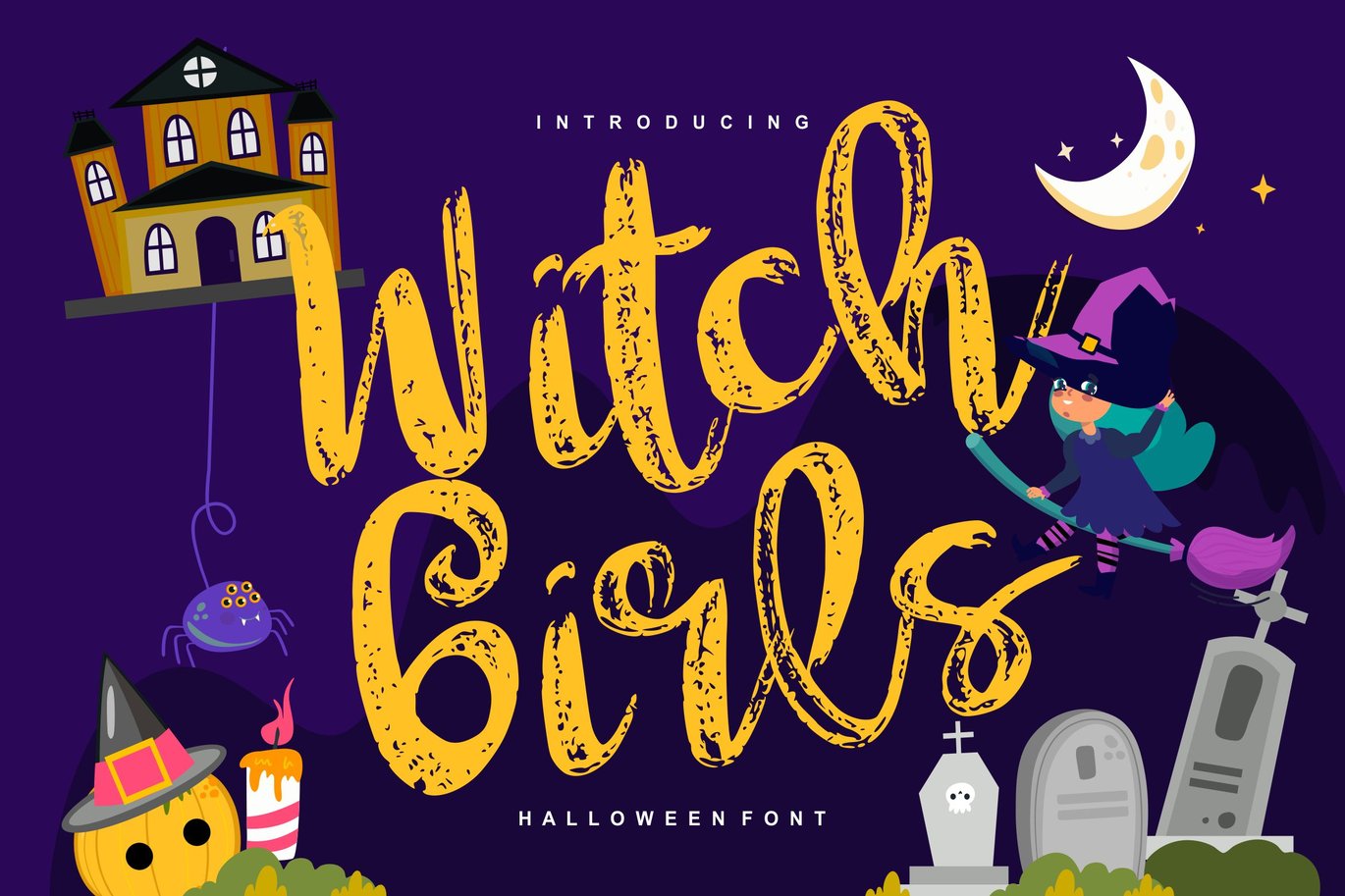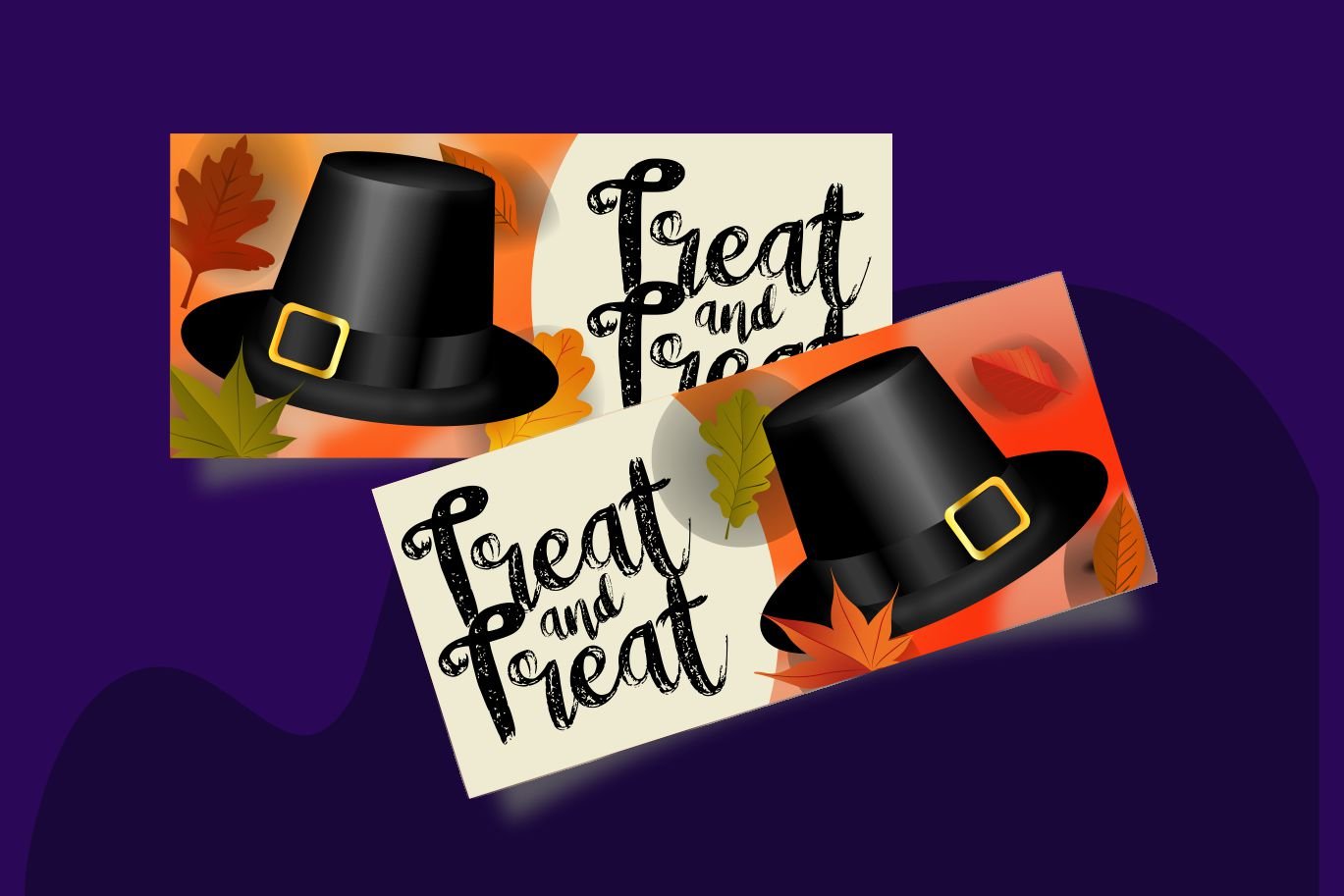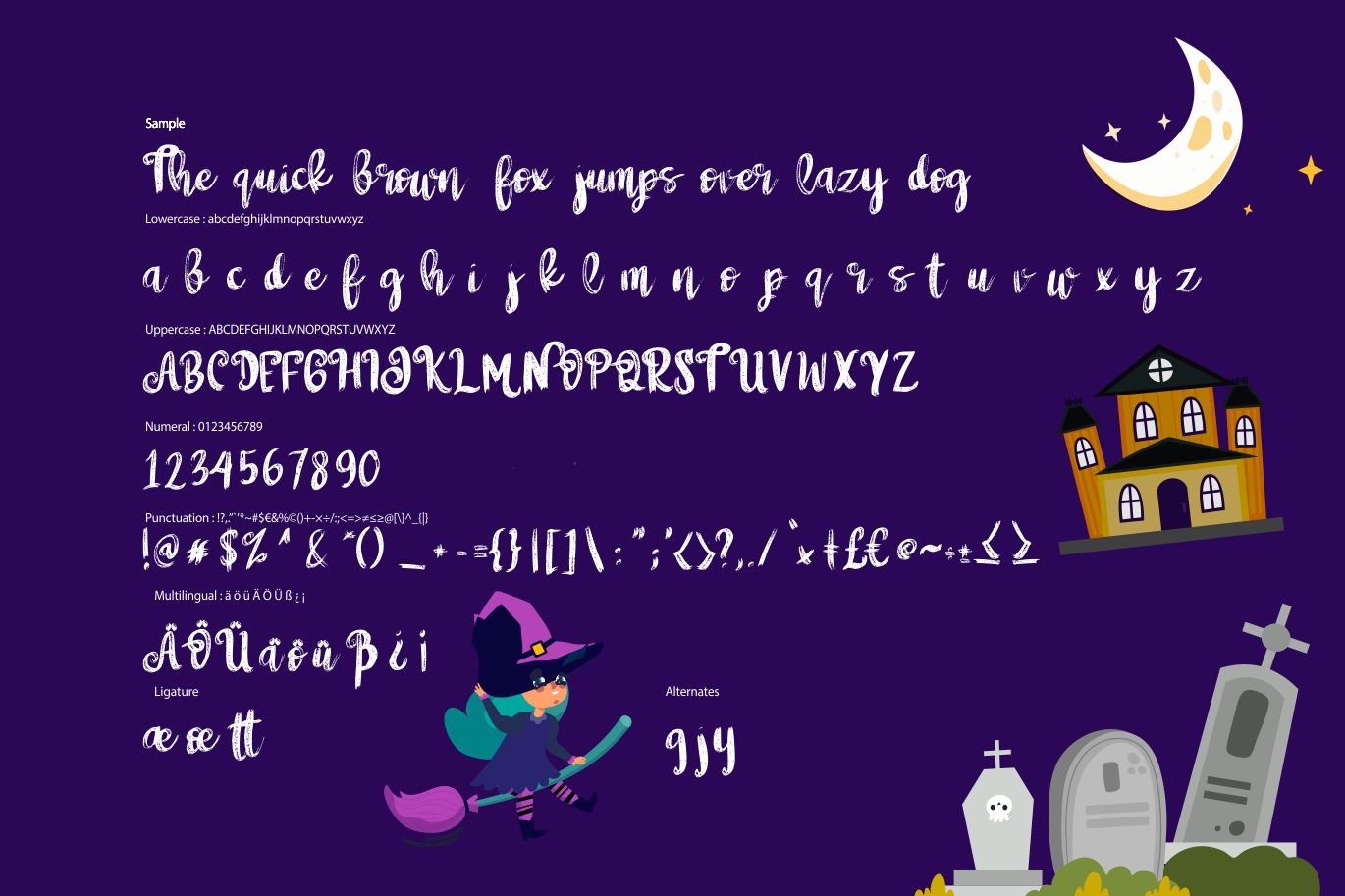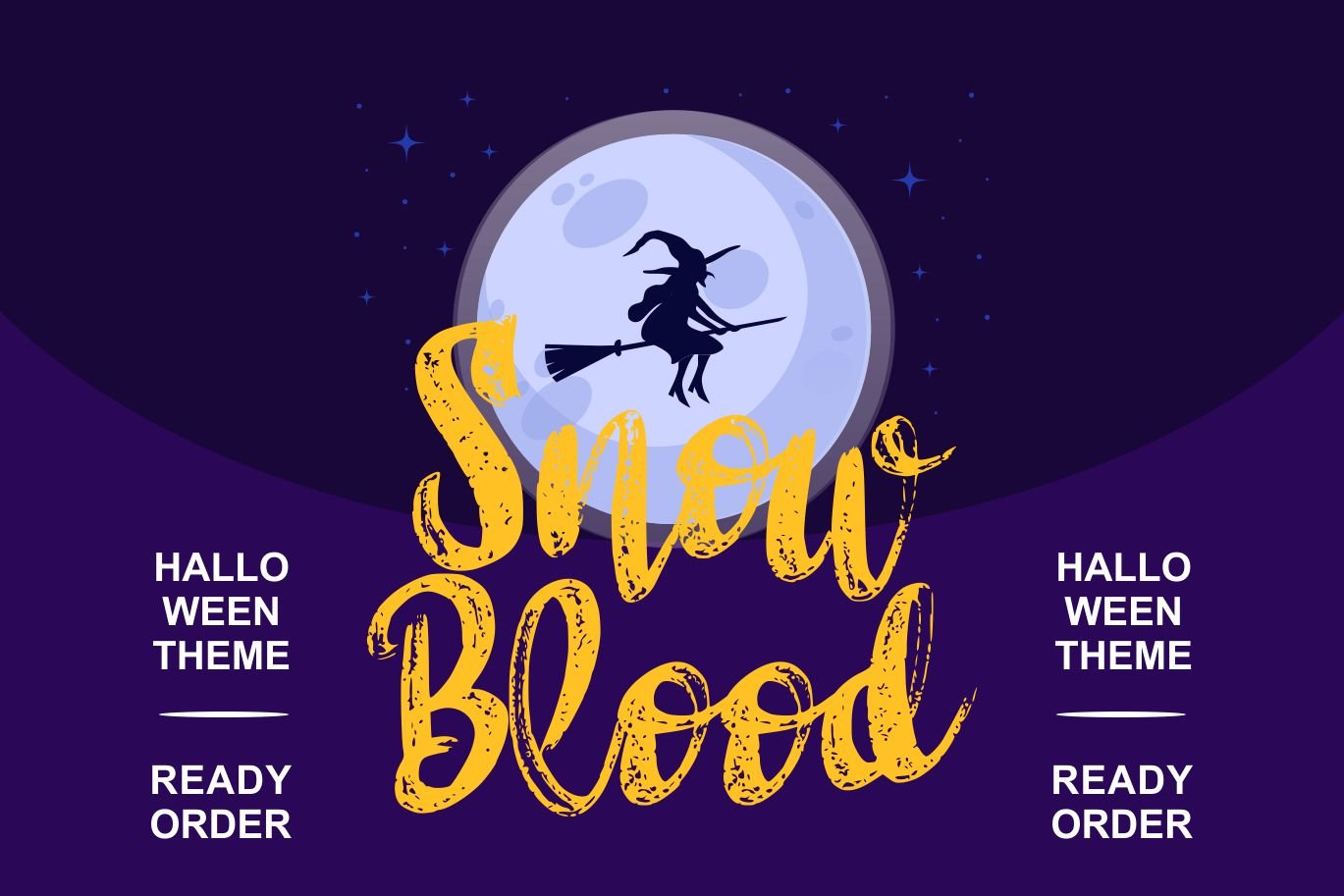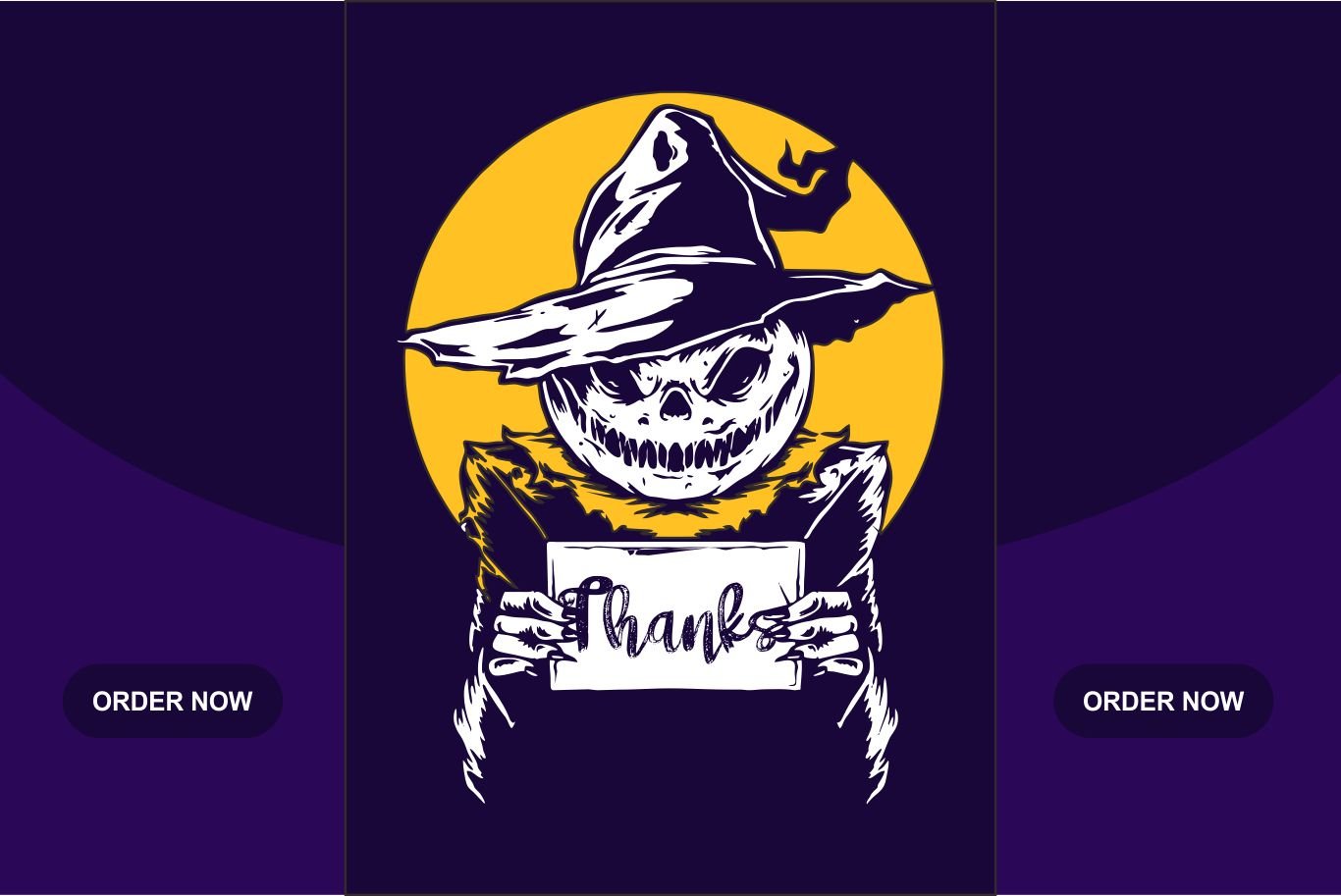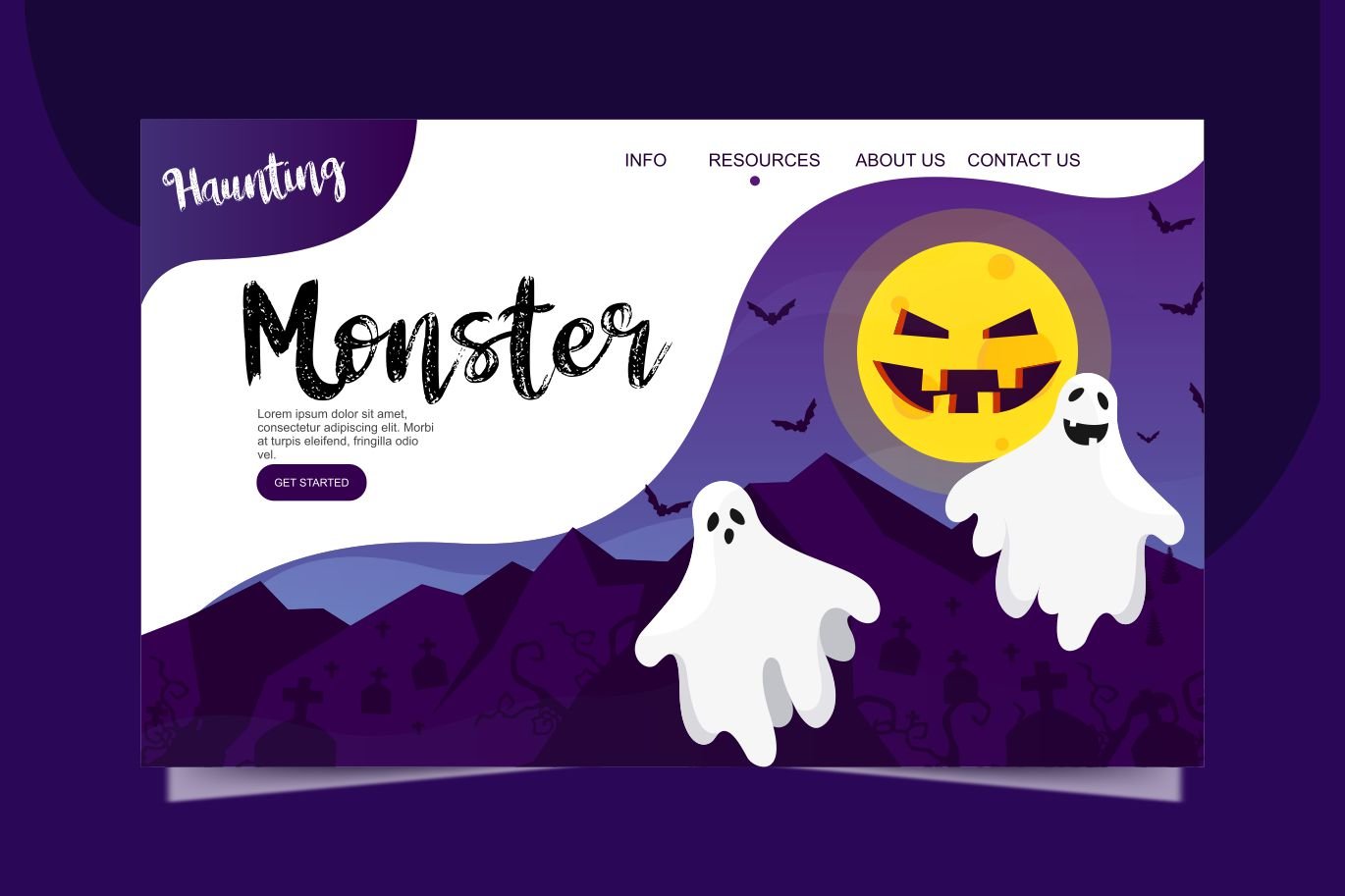
Witch girls | Script Halloween Font
**Witch girls | Script Halloween Font ** with a calligraphy style, So beautiful on invitation like greeting cards, branding materials, business cards, quotes, posters, and more!